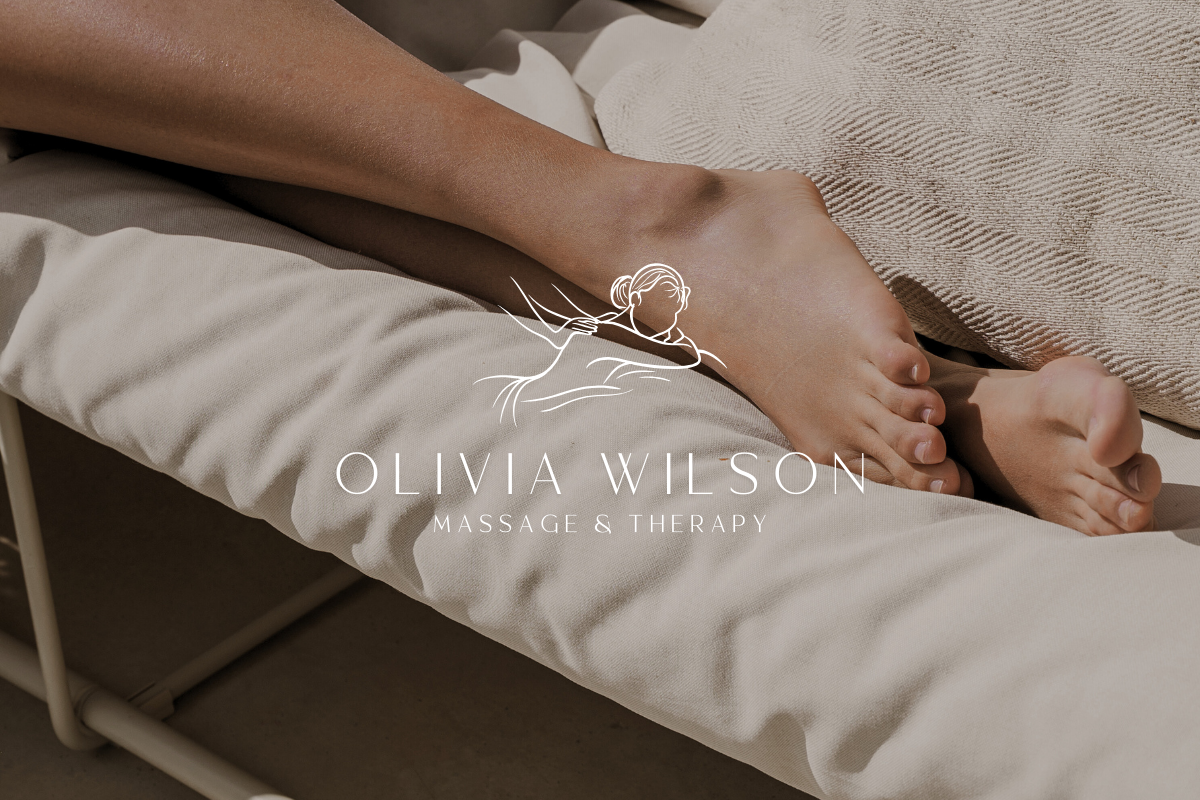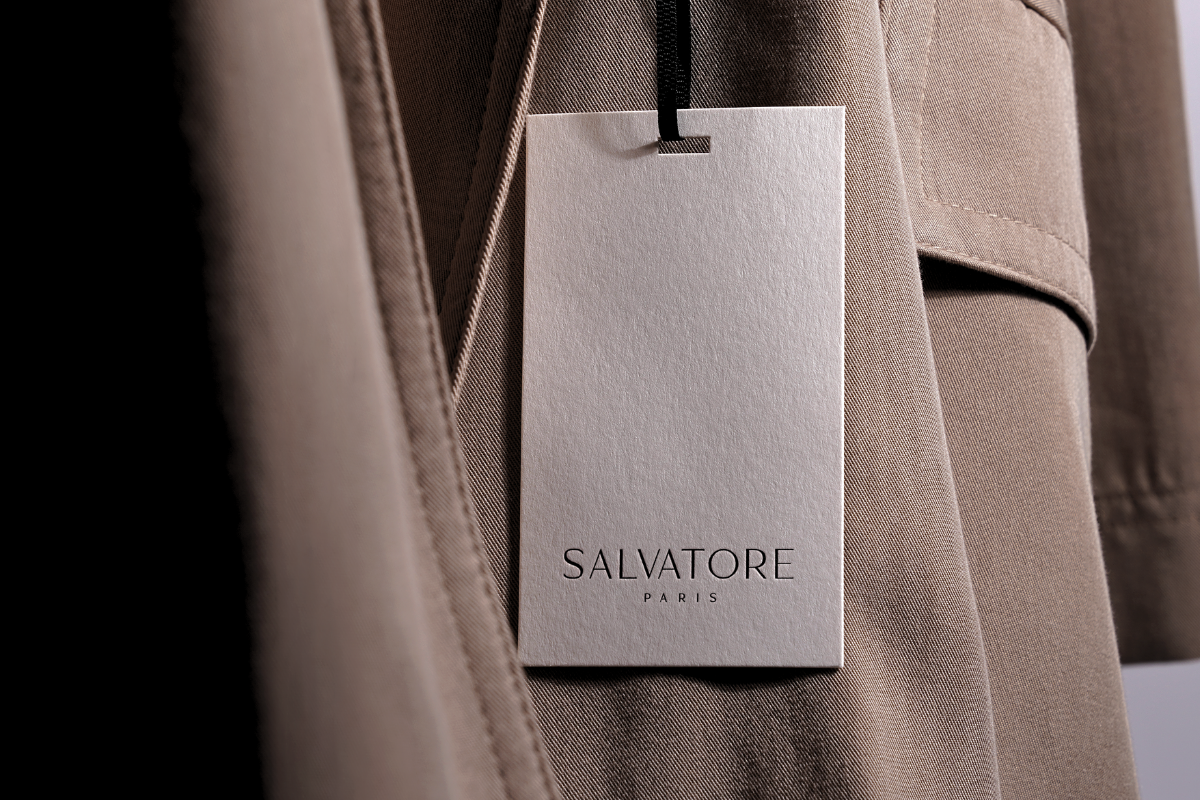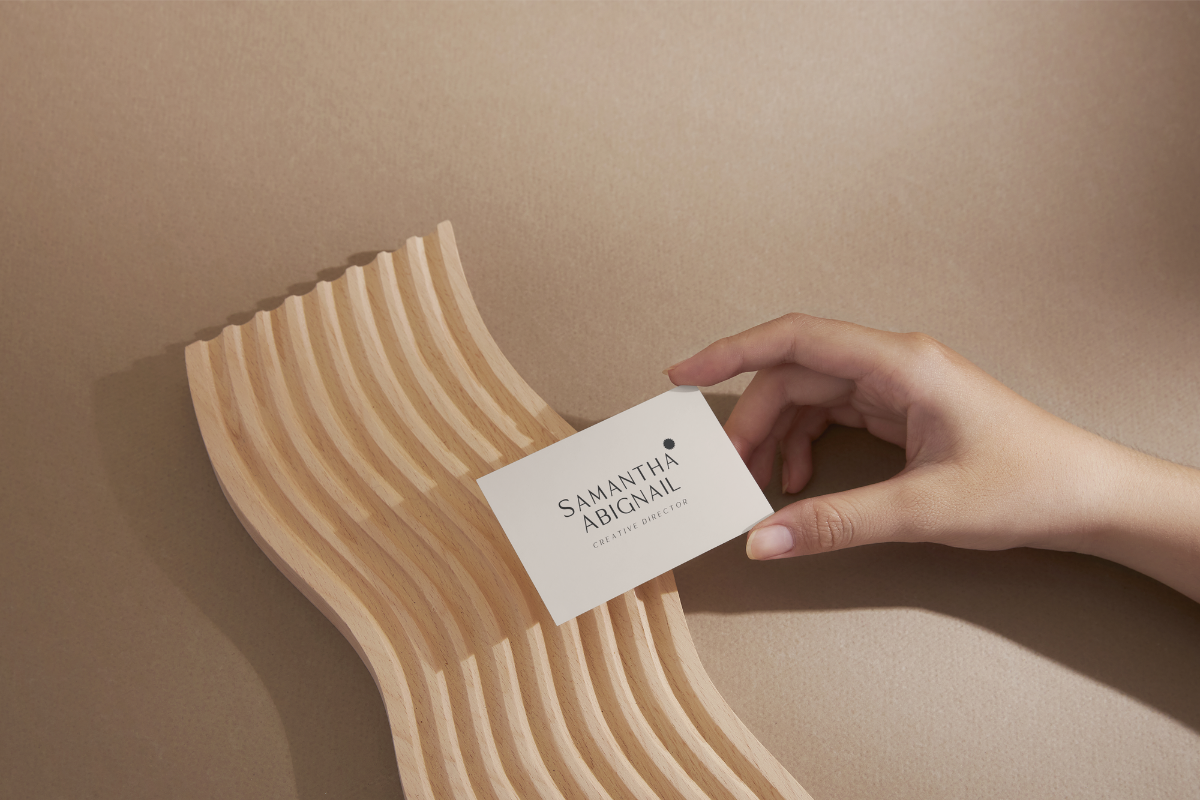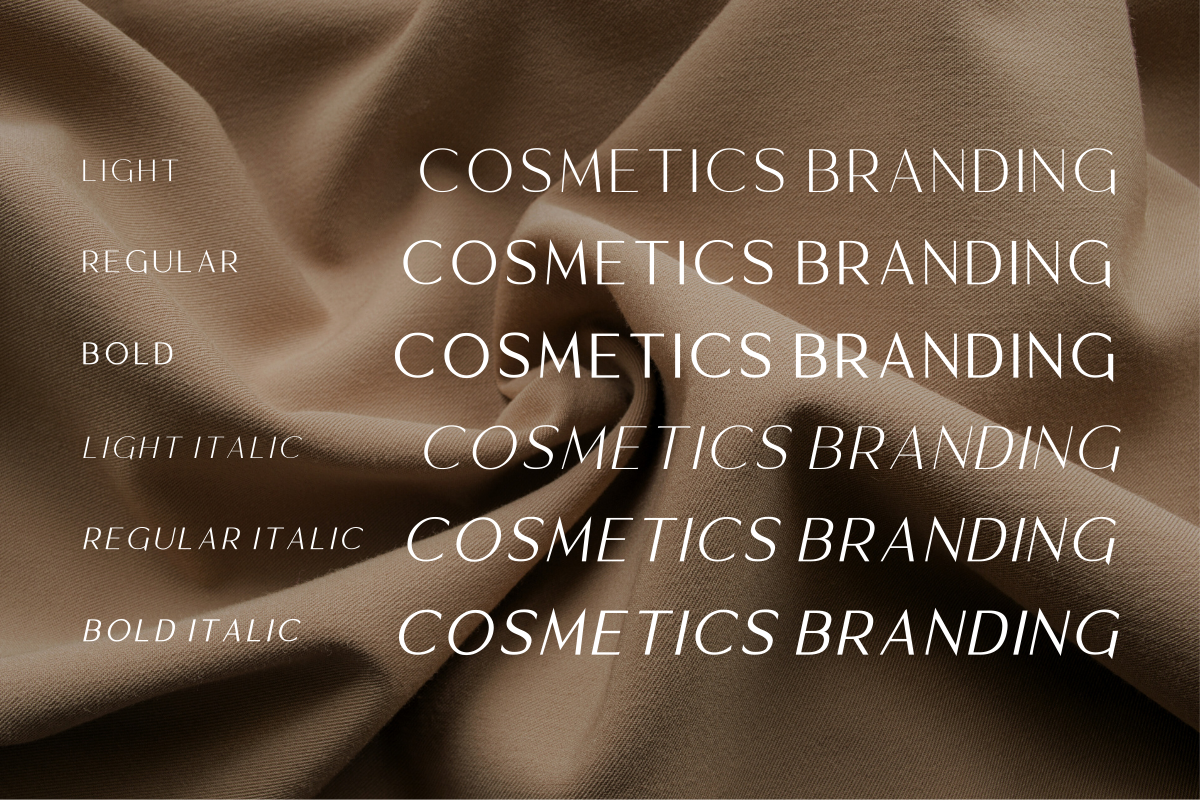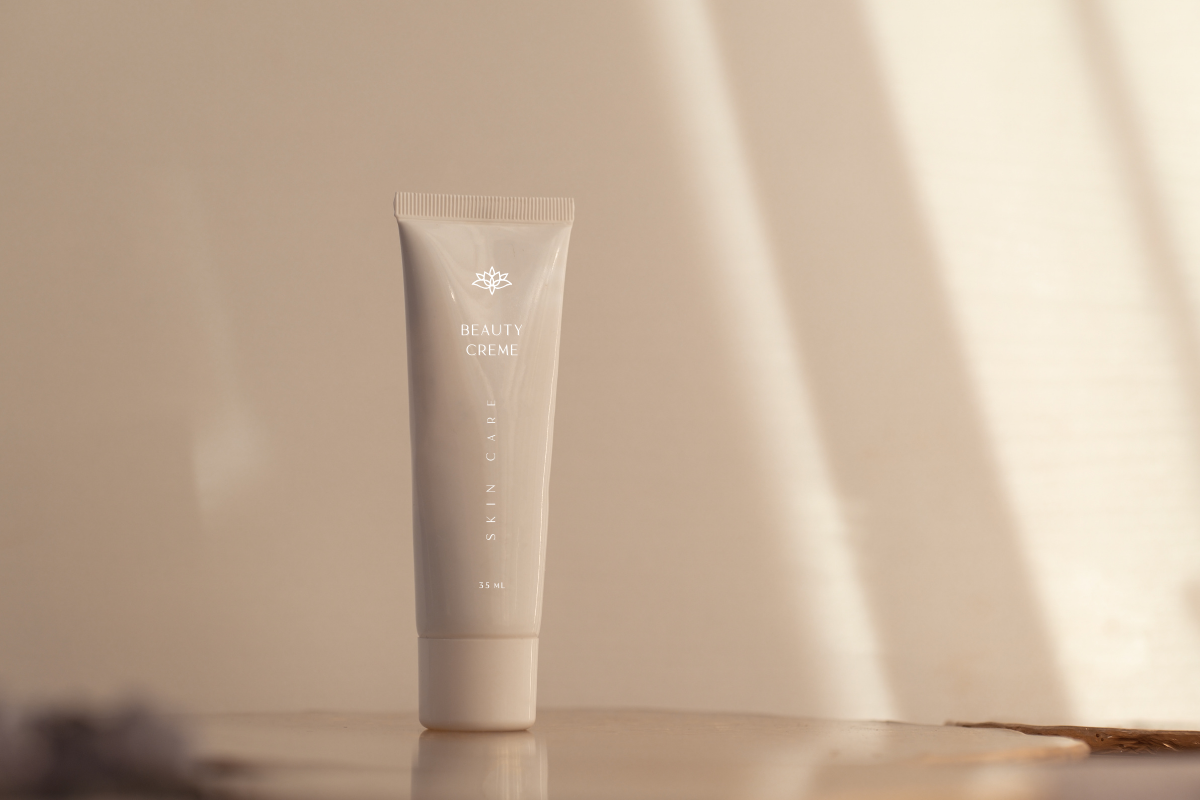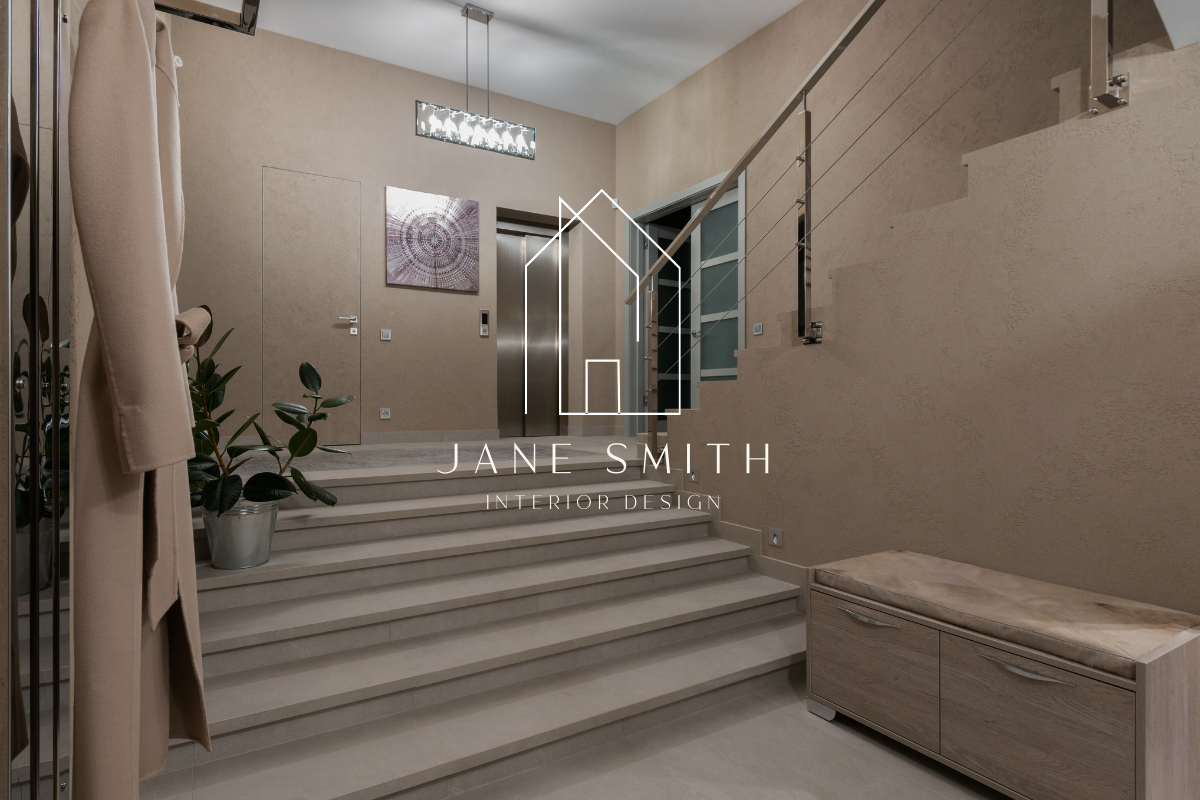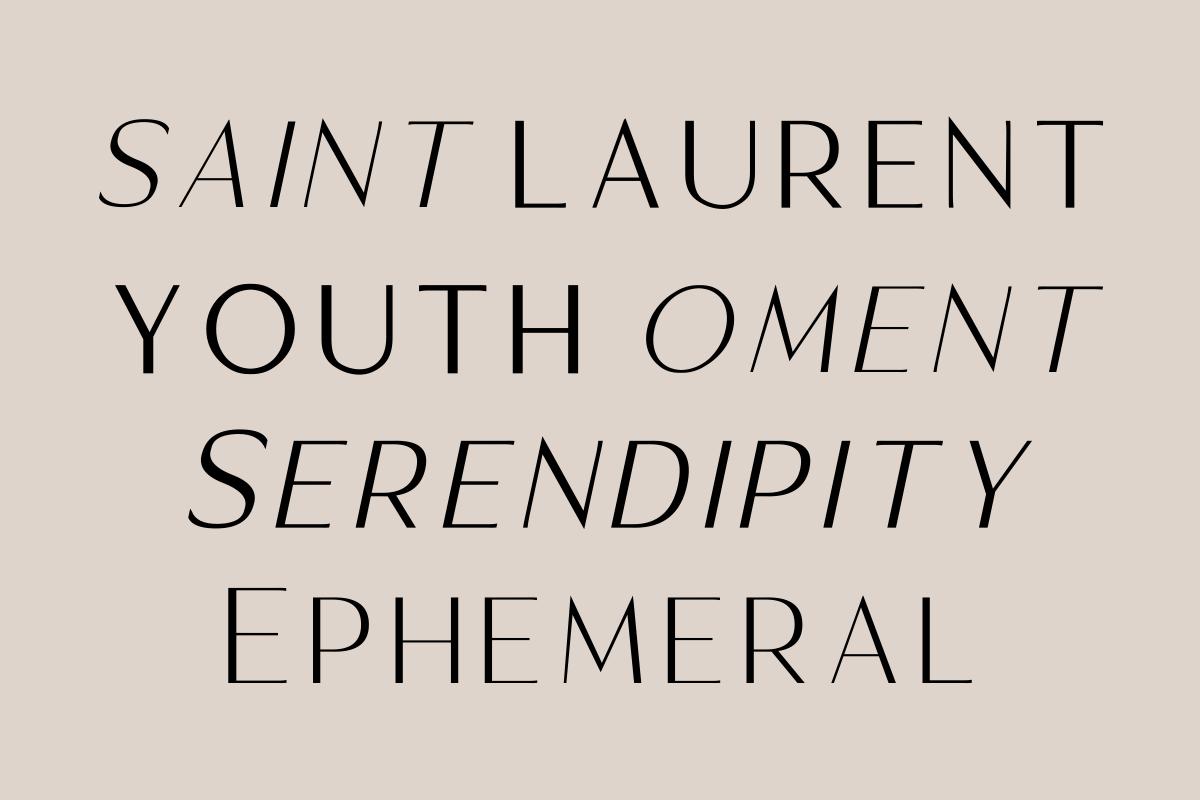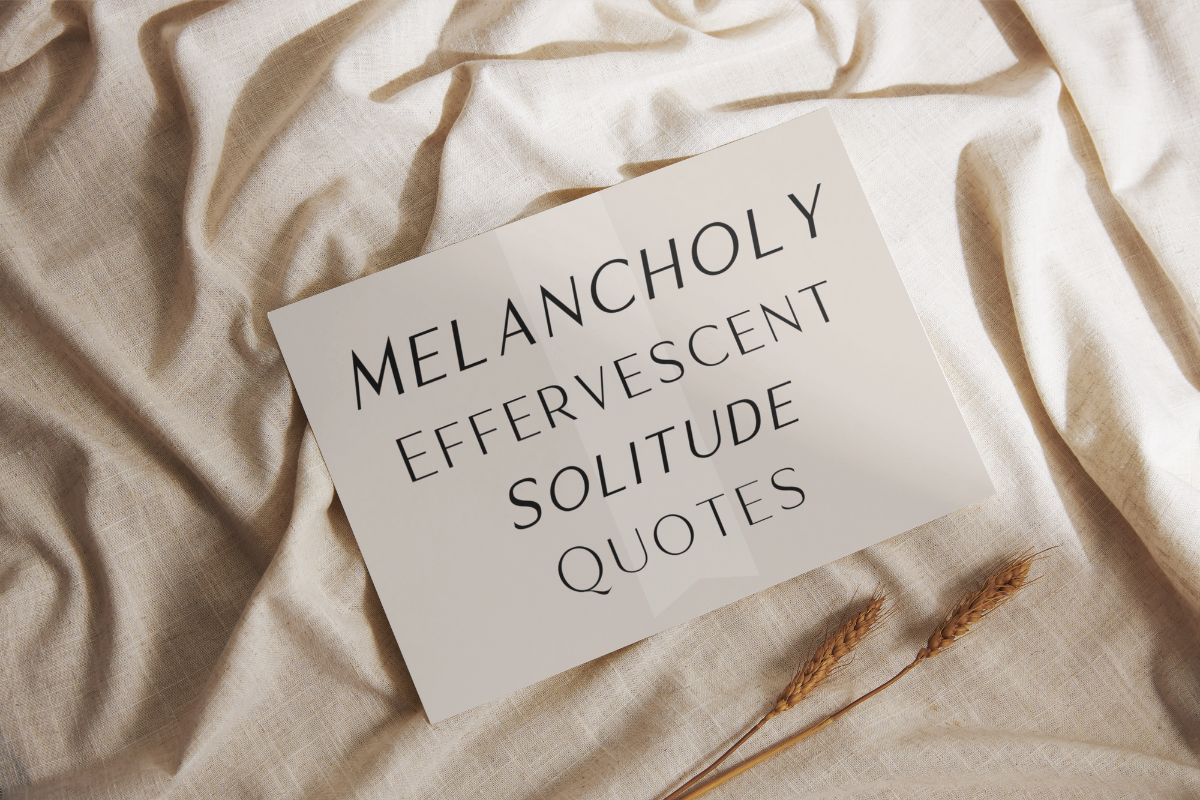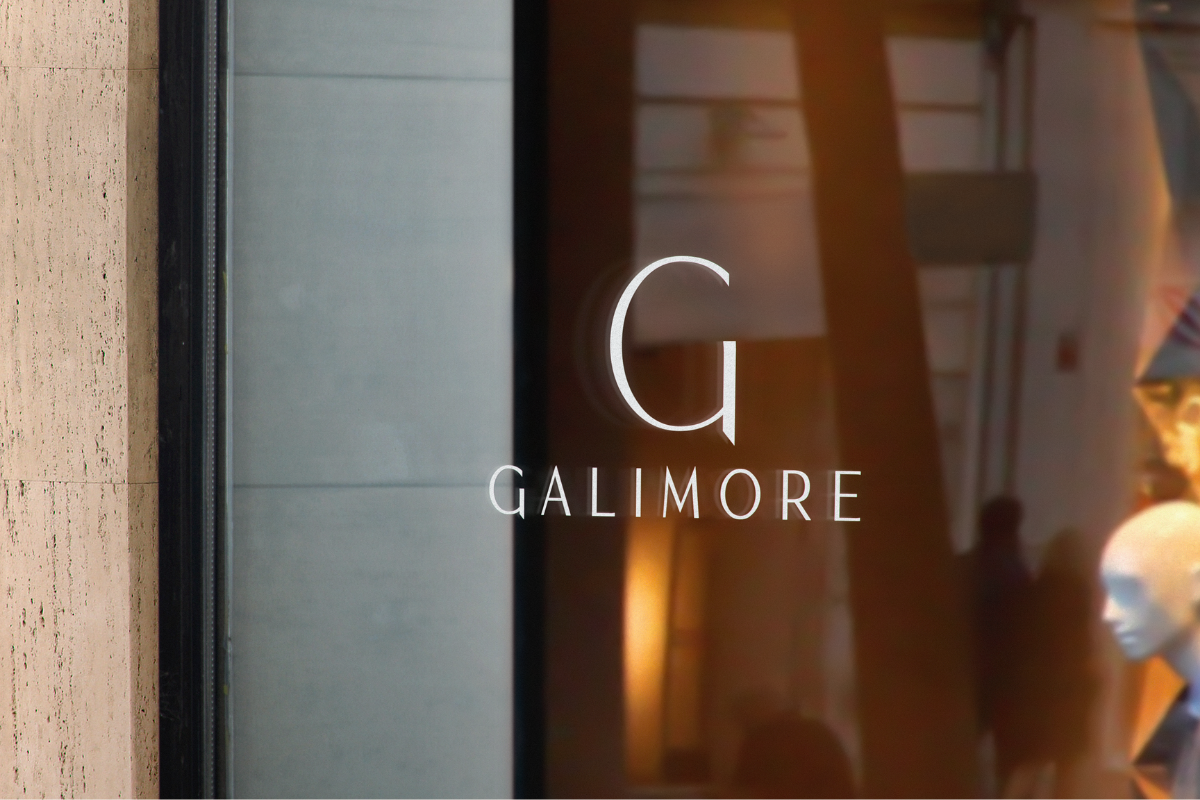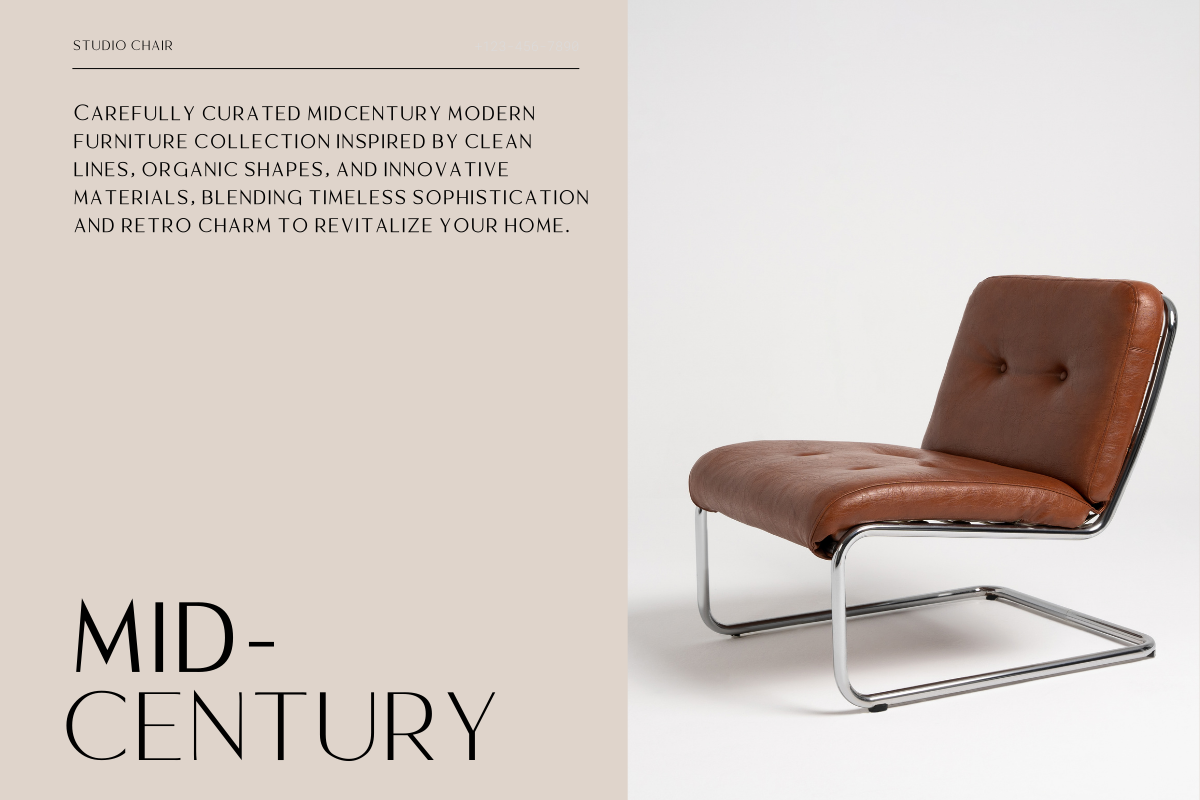
Moragon – Elegant Sans Serif Family
Moragon is an elegant sans-serif font family, designed to provide maximum flexibility for a variety of design projects. Consisting of six variations: Light, Light Italic, Regular, Italic, Bold, and Bold Italic, this font provides the perfect solution for any typography need.
Light and Light Italic: Ideal for designs that require a subtle, minimalist look, such as elegant magazines or websites. Regular and Italic: Versatile options for main text in documents, articles, or presentations that require high readability with a professional touch. Bold and Bold Italic: Great for titles, headings, or elements that need extra emphasis, giving a strong and striking impression. Moragon is the perfect choice for creating modern, professional, and versatile designs, from print to digital.